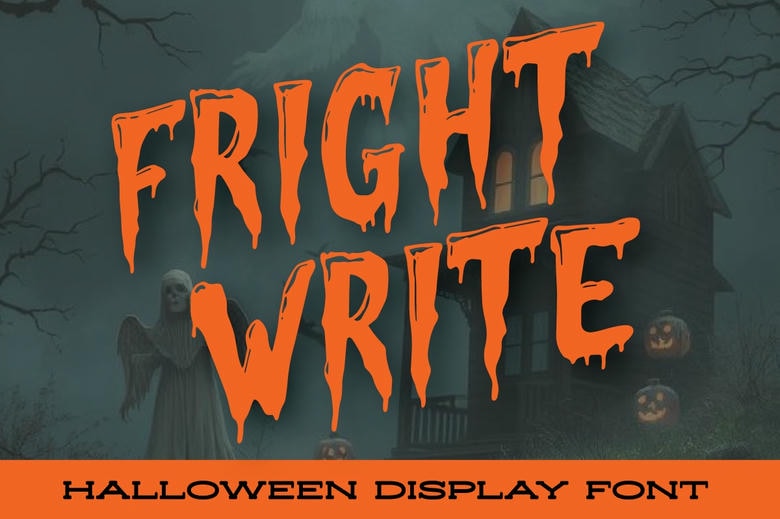
Fright Write Font
Fright Write is a naughty, spooky typeface that is ideal in Halloween-related designs. The letters are crooked and irregular, which brings in a feeling of terror and discomfort that it is scratched on the surfaces by a haunted hand. Both characters are dripping in details, such as fresh ink dripping down, or blood dripping off the edges.
Fright Write Display Font